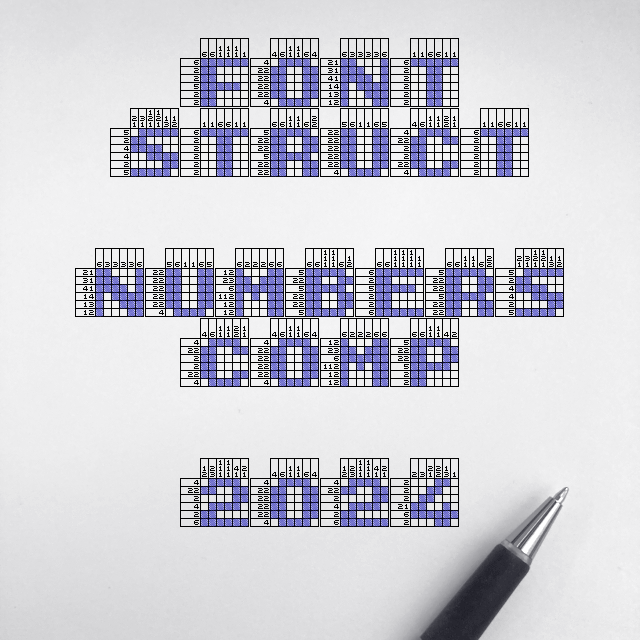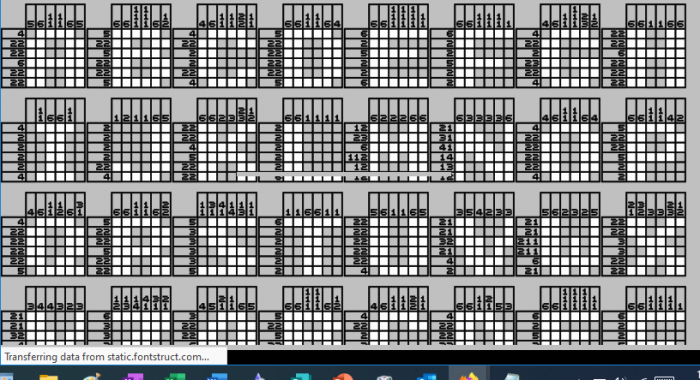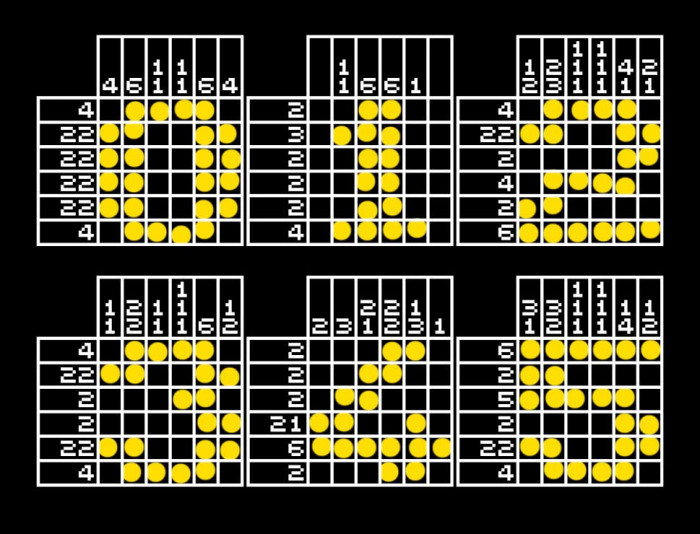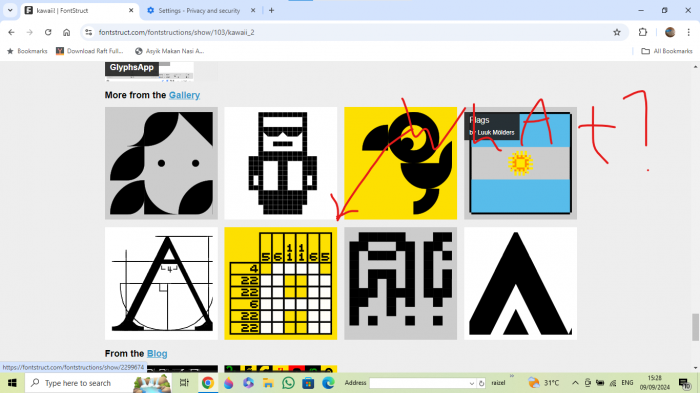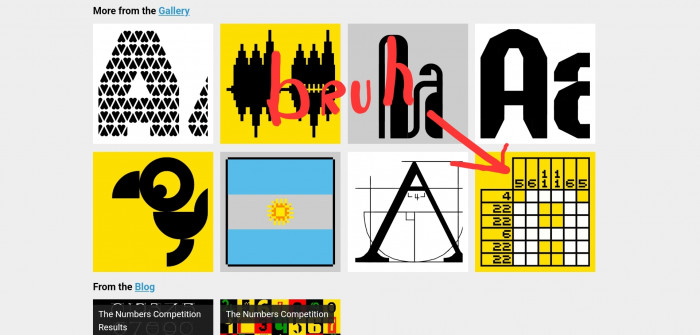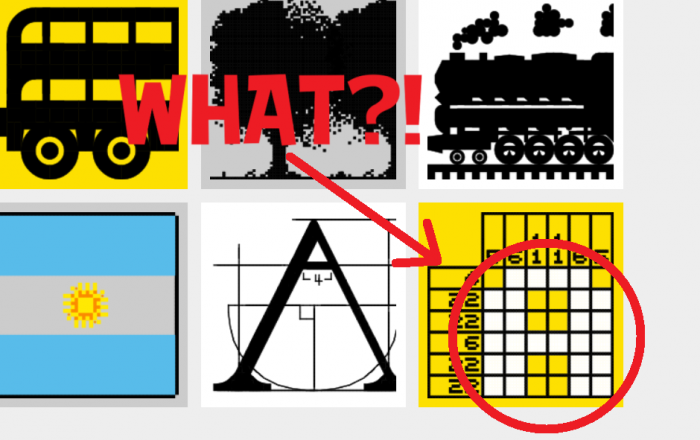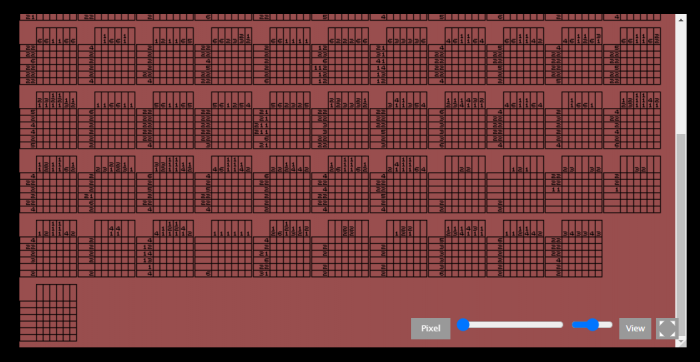
A very cool idea) You can leave a secret message or a declaration of love to someone.
this is a colour font
Great! 10+❤️! You can add easily the "Game" tag to it. It remember me a few the AT Sudoku font by @kassymkulov. Good luck at the Comp!
This might be the best interpretation of number competition. It only contains numbers yet it contains the letters. Brilliant.
@lucapri how did you know? (I used another color layer to draw the characters and then hid it)
if i change the colour settings on mozilla firefox:
Ah. I've noticed that color fonts briefly show hidden layers when loading the page, so I changed the color to white, but then this can be an issue.
(PS: I've changed numbers 1 and 2 in this sample.)
Looks like a font on pixel games
you know that there are coloured nonograms?
I Can't Just See Everything But I See Only The Grid And The Numbers
i can see the answers
Brilliant move right here, using nonograms for the other users to fill out just to see the letters and numbers, 10/10 from me.